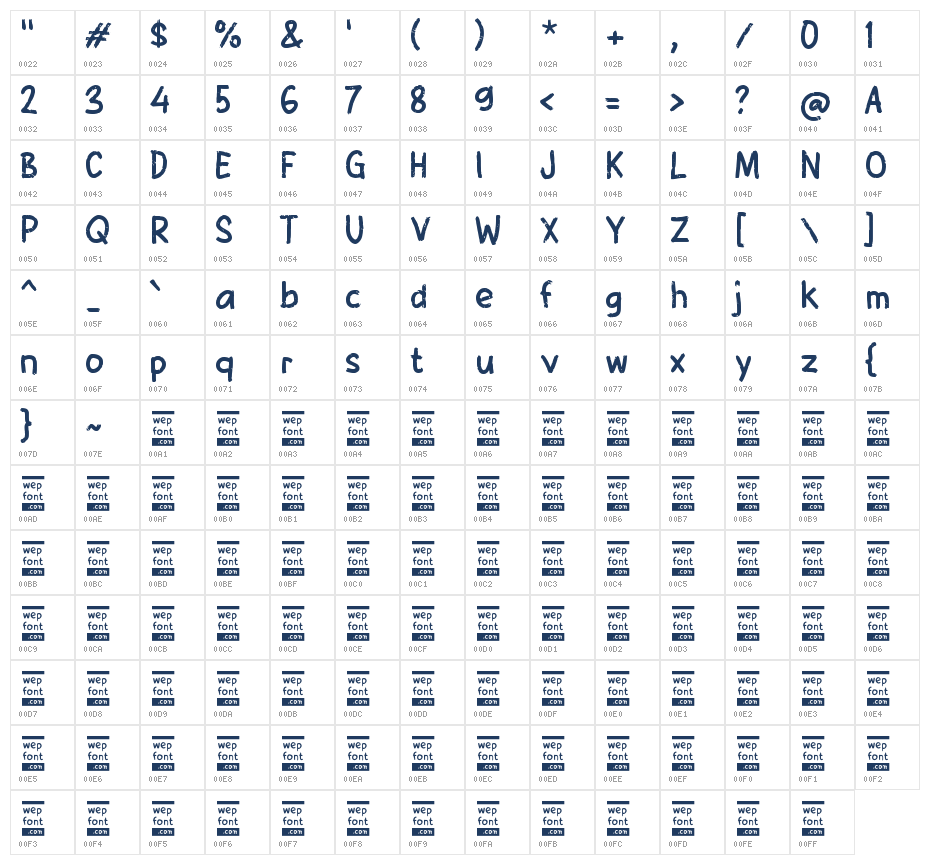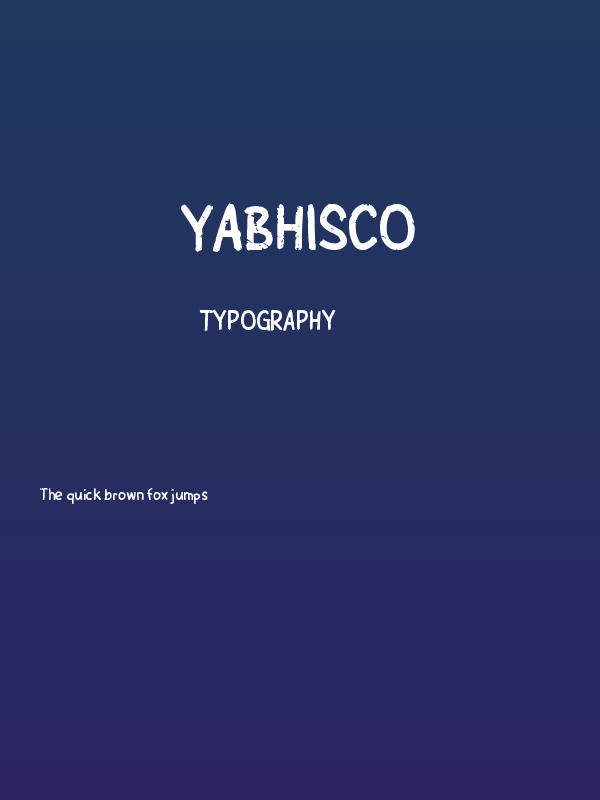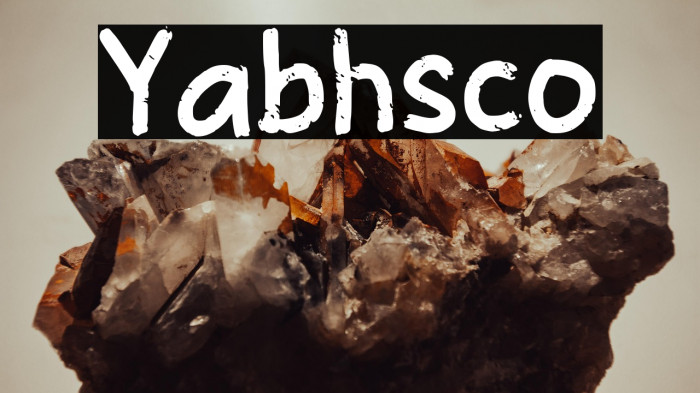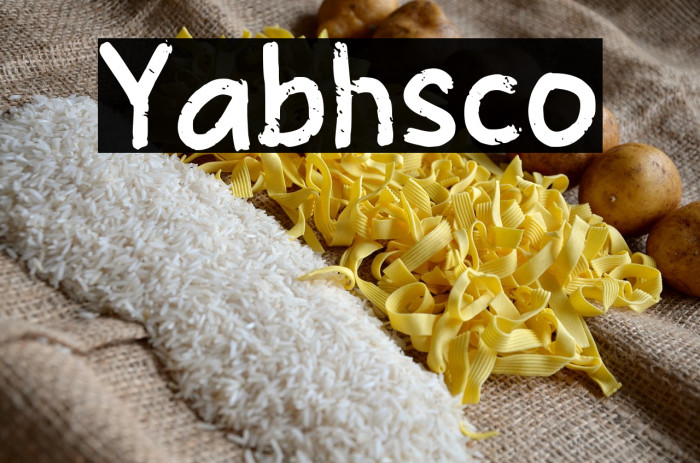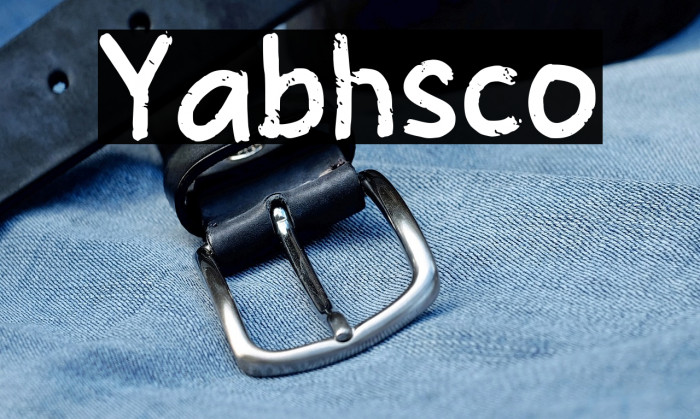
Yabhisco Font
Yabhisco Description
A playful, handwritten style font with a casual, brushstroke appearance, featuring irregular edges and a textured look.
| Overall Style | Casual, Playful, Handcrafted |
| Use Case | Headlines, Body text, Logos, Creative projects |